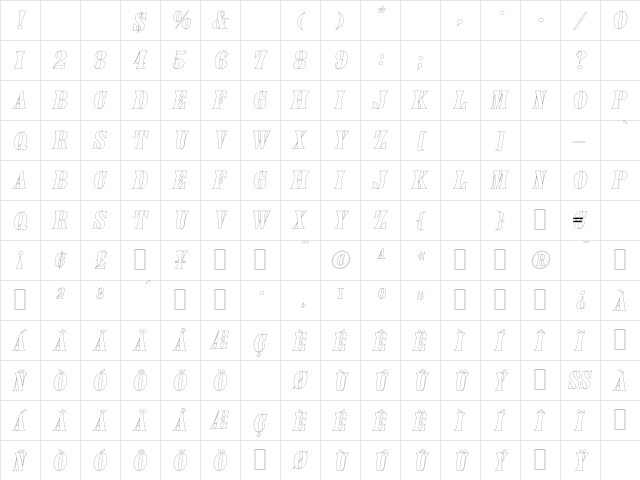
PageCapsOutline Italic
Design Context for PageCapsOutline Typeface
PageCapsOutline brings ornamental detail and strong personality to headlines and identities, where visual impact matters more than quiet functionality. The slanted form adds forward momentum and visual energy.
Font Pairing: Pair with a clean neutral sans-serif for body copy to let PageCapsOutline's character lead without overwhelming the composition.
Pro Tip: Treat PageCapsOutline as the centrepiece of your typographic hierarchy. One strong heading set in a decorative face can carry an entire layout.